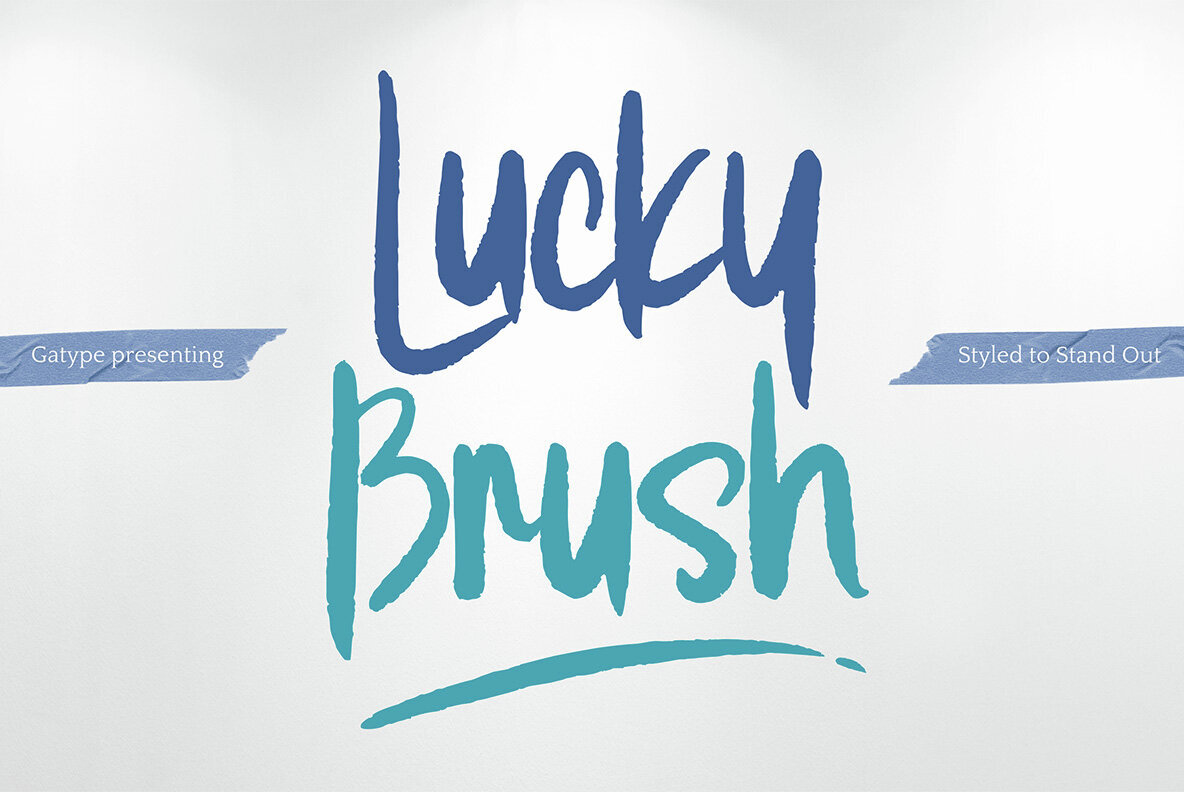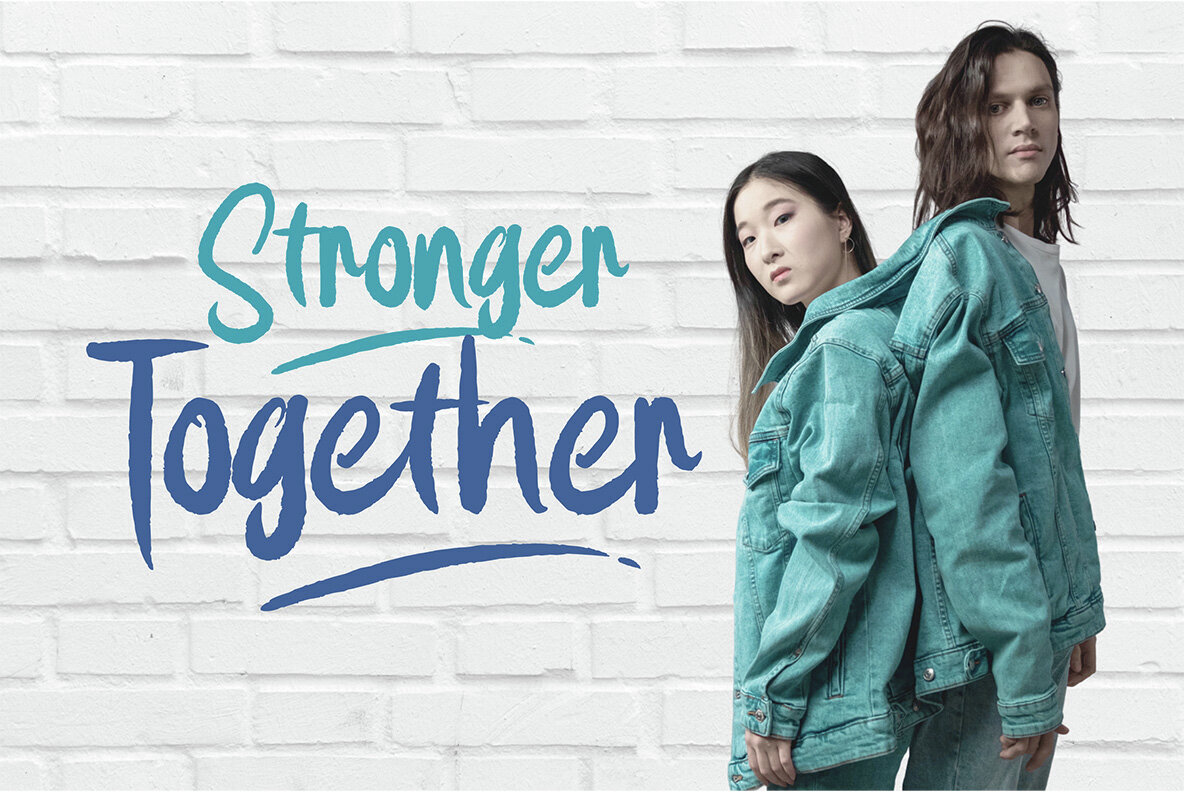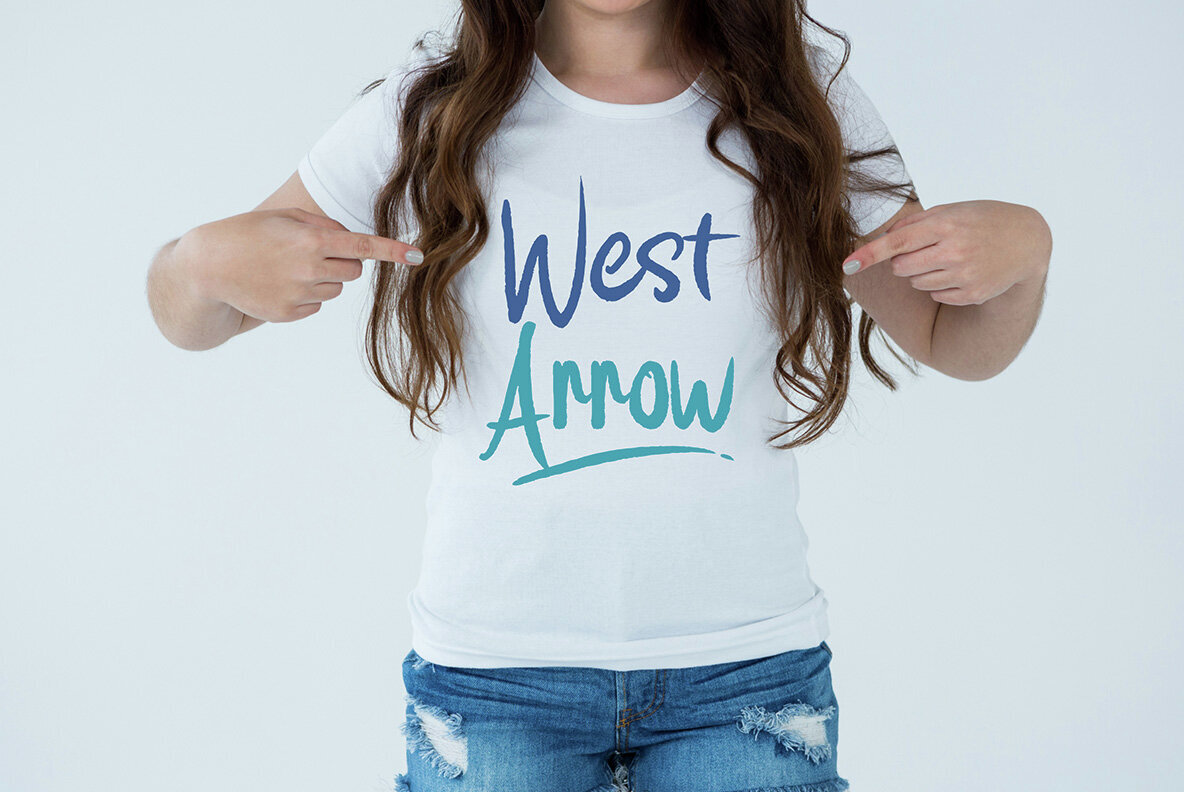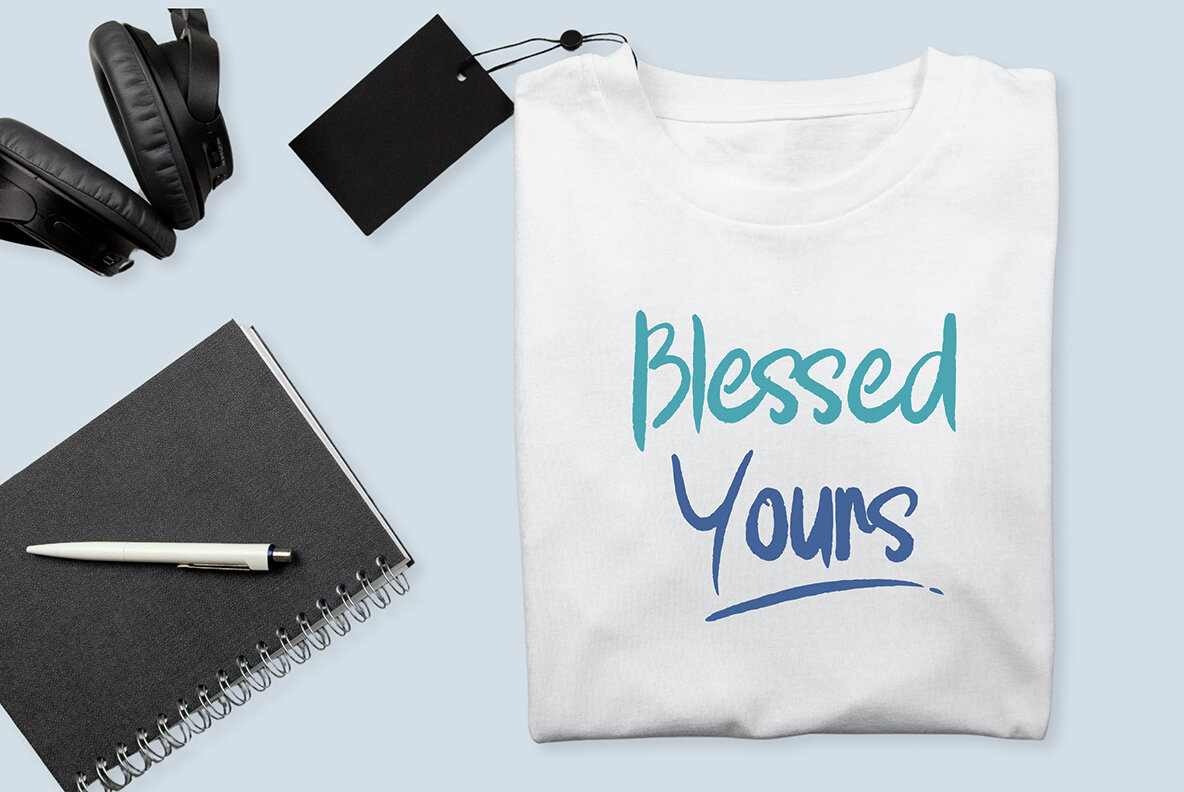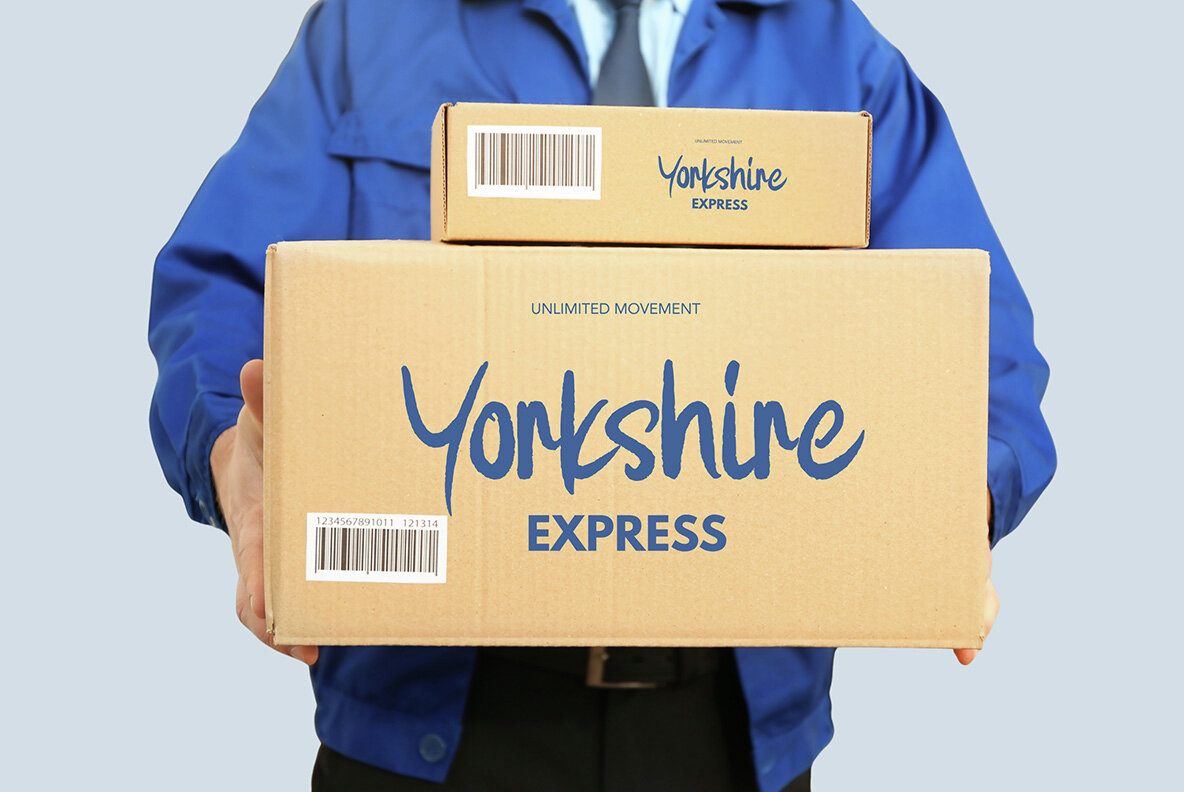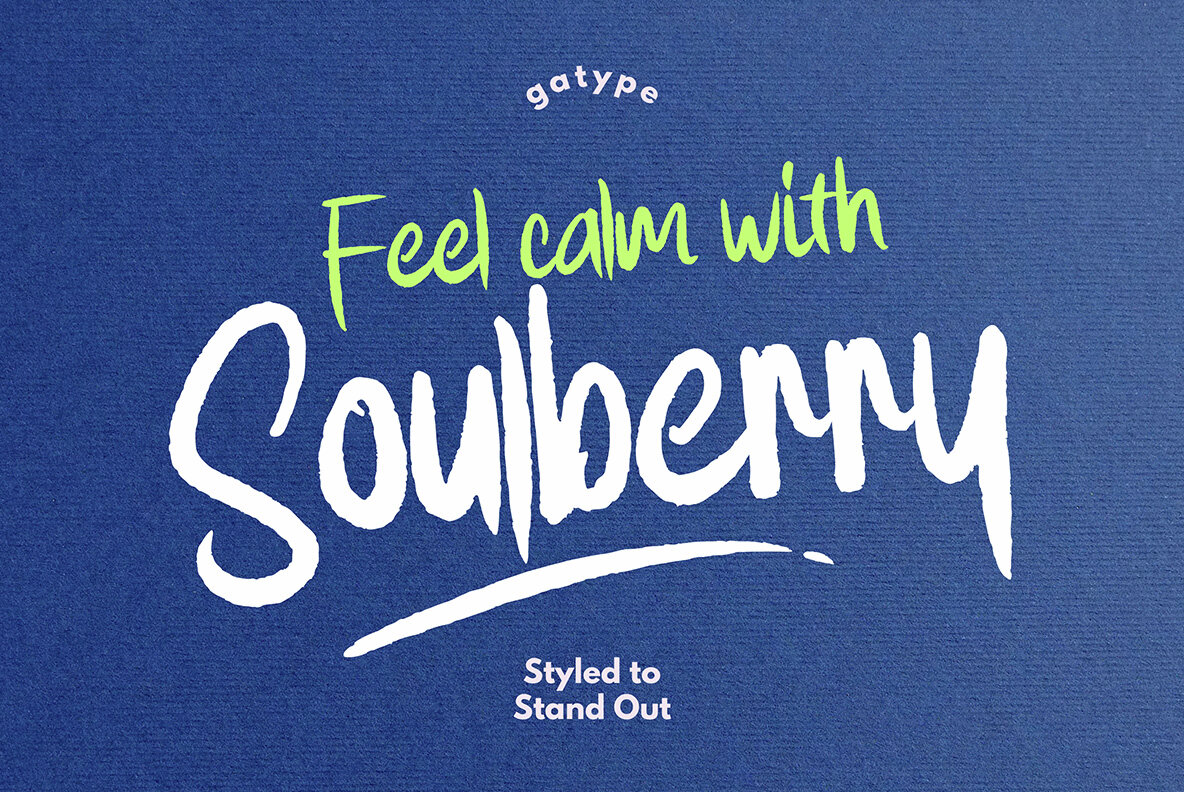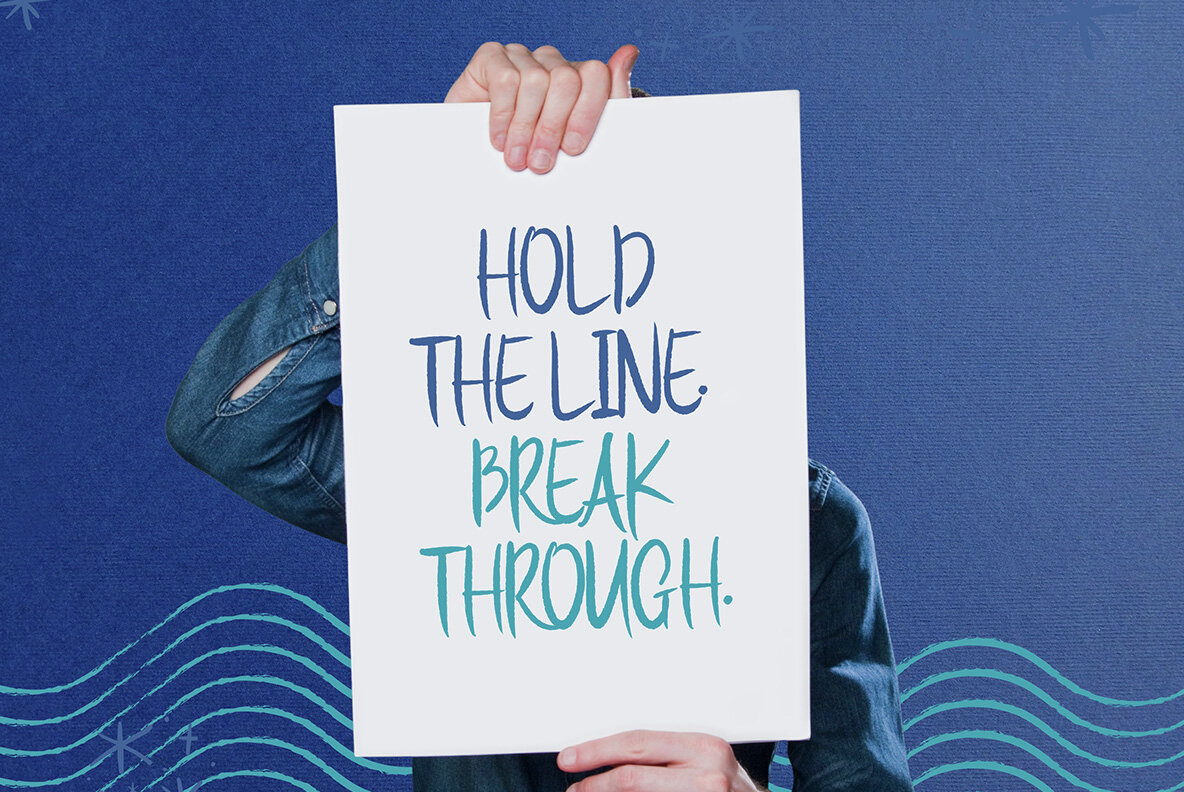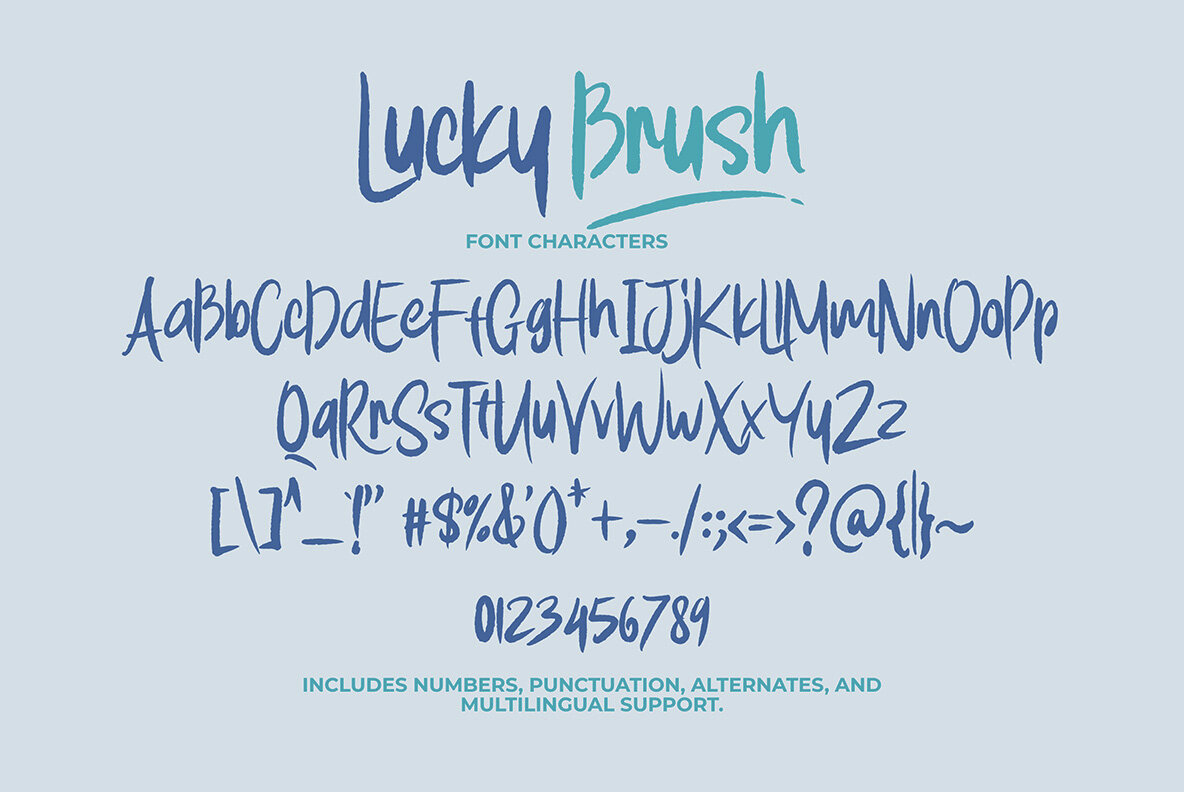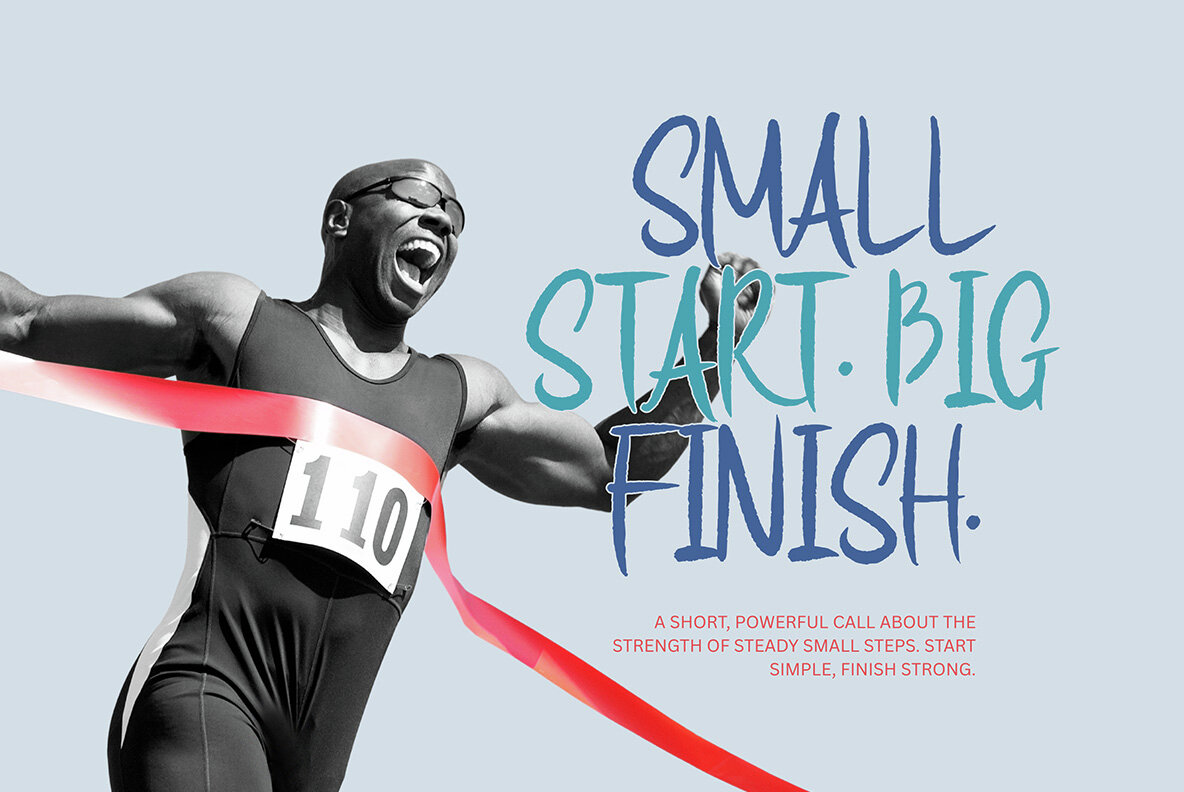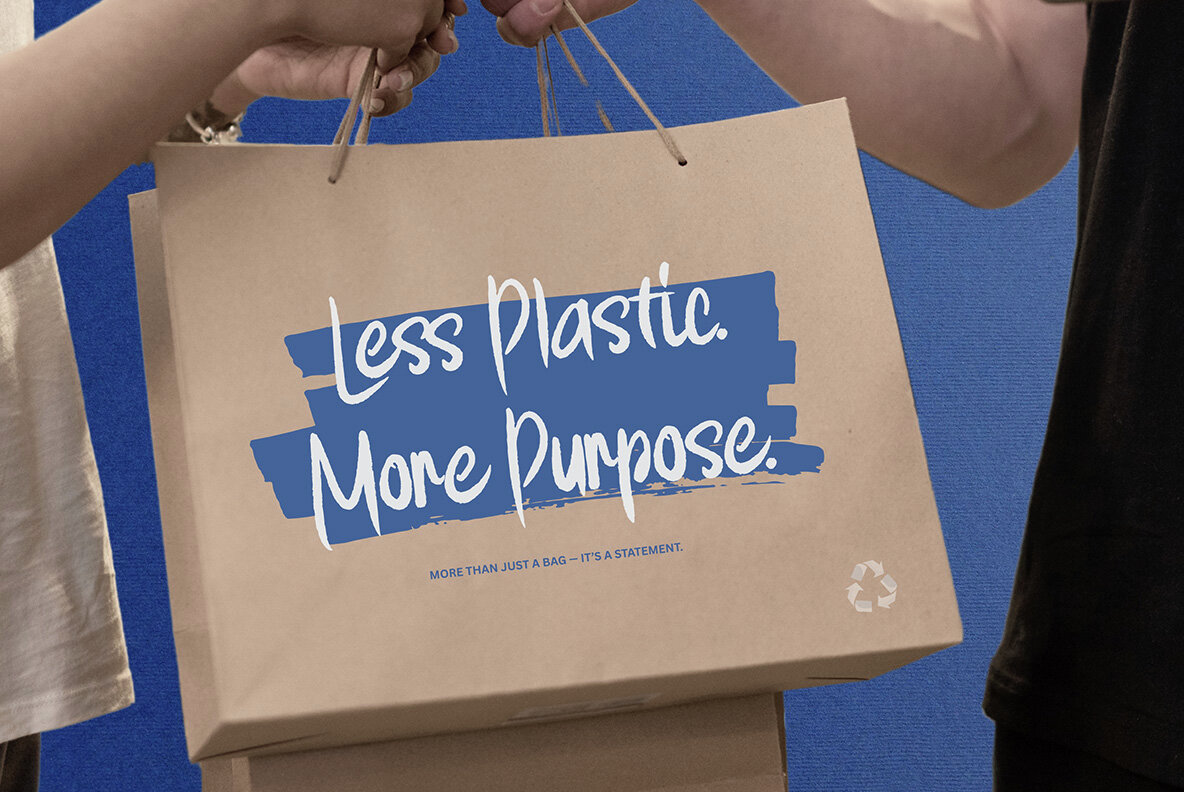
Lucky Brush Font
Lucky Brush
Experience the bold and vibrant style of Lucky Brush, a script font that captures the untamed essence of hand-painted artistry. Ideal for headlines, branding, posters, and any project that requires a touch of personality, this typeface adds a lively and confident impact to every word. Its dynamic flow and authentic texture can elevate your designs with an unmistakable visual charm.Lucky Brush Typeface: Unleash the Energy of Hand-Painted Strokes
Features of Lucky Brush